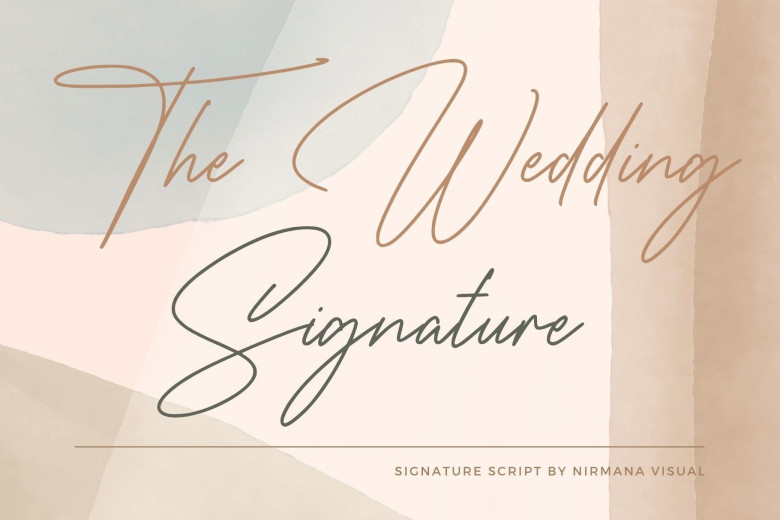
The Wedding Signature Font
The Wedding Signature is a beautiful script font. This font is legible and looks great as a headline or in short paragraphs. It looks stunning on wedding invitations, thank you cards, quotes, greeting cards, logos, business cards, and every other design which needs a handwritten touch.
The Wedding Signature Script Font